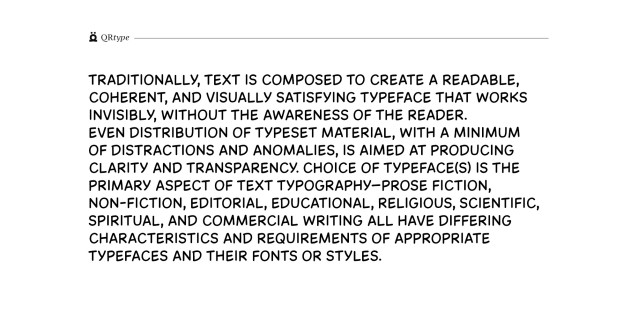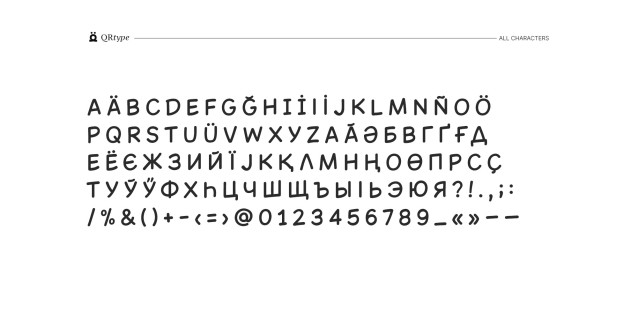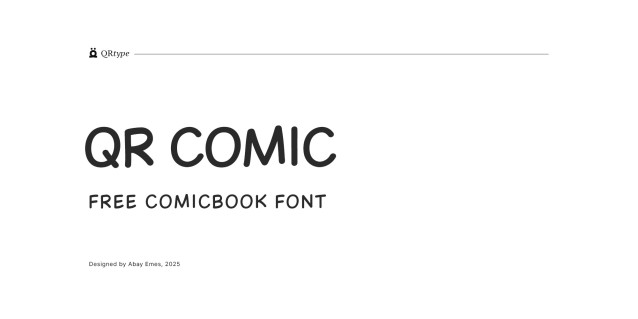
QR Comic Beta Font
QR Comic Beta Font a sweet and friendly handwritten font. Cute and fun, this font is ideal for writing wedding invitations, cards, or any other design that might need a fun touch!
QR Comic (Beta)
Designed by Abay Emes, QR Type, 2025